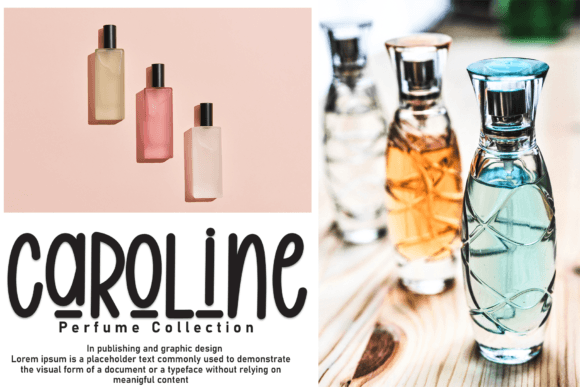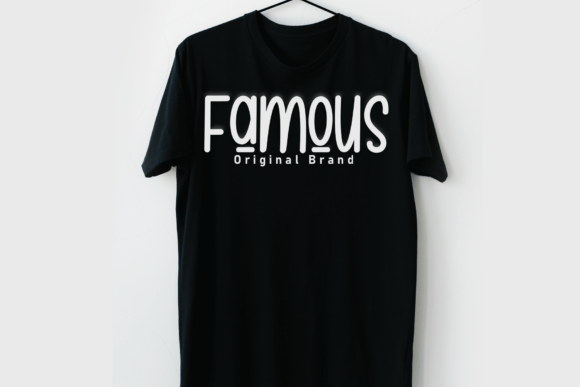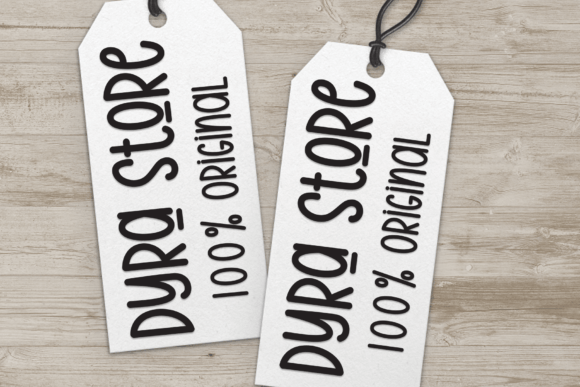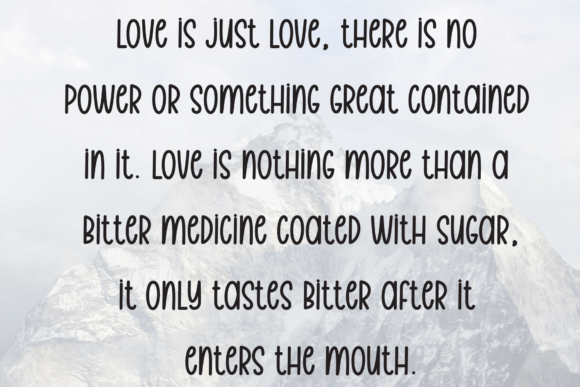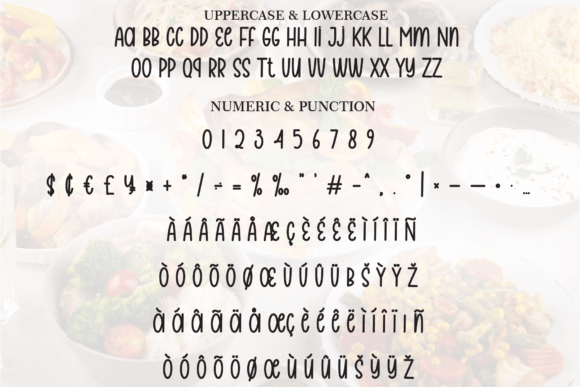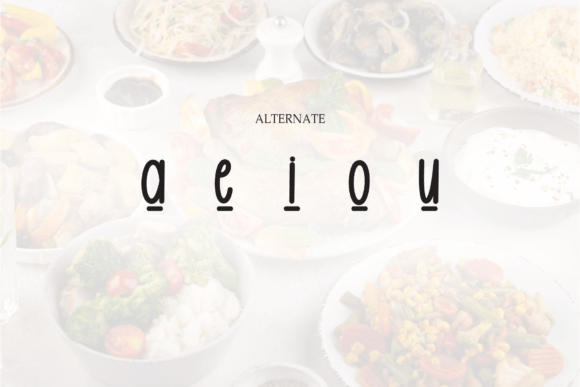
Indulge in the Flavors of Typography
Have you ever found yourself swooning over the perfect food photo, craving the dish in front of you? That’s the magic of culinary design – where the perfect combination of visuals and text can tantalize our taste buds and leave us wanting more. As designers, we know that the right font can make all the difference in conveying the essence of a dish and making our creations irresistible.
Enter the Delicious Font, a typeface that embodies the flavors and charm of culinary delights. With its luscious curves and tasteful letterforms, this font is perfect for food blogs, bakery branding, and culinary designs. Whether you’re a designer, foodie, or both, the Delicious Font is a valuable addition to your toolkit – adding a dash of charm and culinary passion to your creative projects.
Delicious Font Key Features
- Font Family: Delicious Font offers a unique, modern sans-serif font family with multiple styles, including Regular, Italic, Bold, and Bold Italic.
- Character Set: The font includes a comprehensive character set, covering Latin, Cyrillic, and Greek alphabets, as well as a range of punctuation and symbol characters.
- Unique Characteristics: The font features a distinctive, rounded design with subtle flair on the terminals, giving it a friendly and approachable feel.
Delicious Font Review
As a designer, I’ve had the chance to work with “Delicious Font” and I must say it’s a decent addition to any design project. Here’s what I think works well:
- ✨ The font’s playful and elegant feel makes it perfect for food and lifestyle-related designs, especially for recipes, menus, and blogs.
- ✨ The font’s versatility allows it to work well in both digital and print formats, making it a great choice for designers who need to adapt their work across different platforms.
- ✨ The font’s high legibility ensures that text remains clear and easy to read, even at smaller font sizes.
However, there are some limitations that might affect its overall performance:
- ⚠️ The font’s bold weight can feel a bit too heavy at times, which may not be suitable for all design projects.
- ⚠️ The font’s lack of a true italic weight might make it less suitable for designs that require a lot of emphasis or contrast.
- ⚠️ The font’s limited language support might be a concern for designers who need to work with non-English languages.
Overall, I’d say “Delicious Font” is a solid choice for designers who need a fun and elegant font for their projects. While it may not be perfect, its strengths make it a great addition to any design toolkit.
Tips for Getting the Most Out of Delicious Font
Here are some tips to help you get the most out of Delicious Font:
- Use it for headings and titles to add a touch of elegance.
- Pair it with other fonts to create a unique and eye-catching combination.
Delicious Font is perfect for:
- Culinary and hospitality marketing.
- Wedding and event invitations.
Alternatives to Delicious Font for Designers